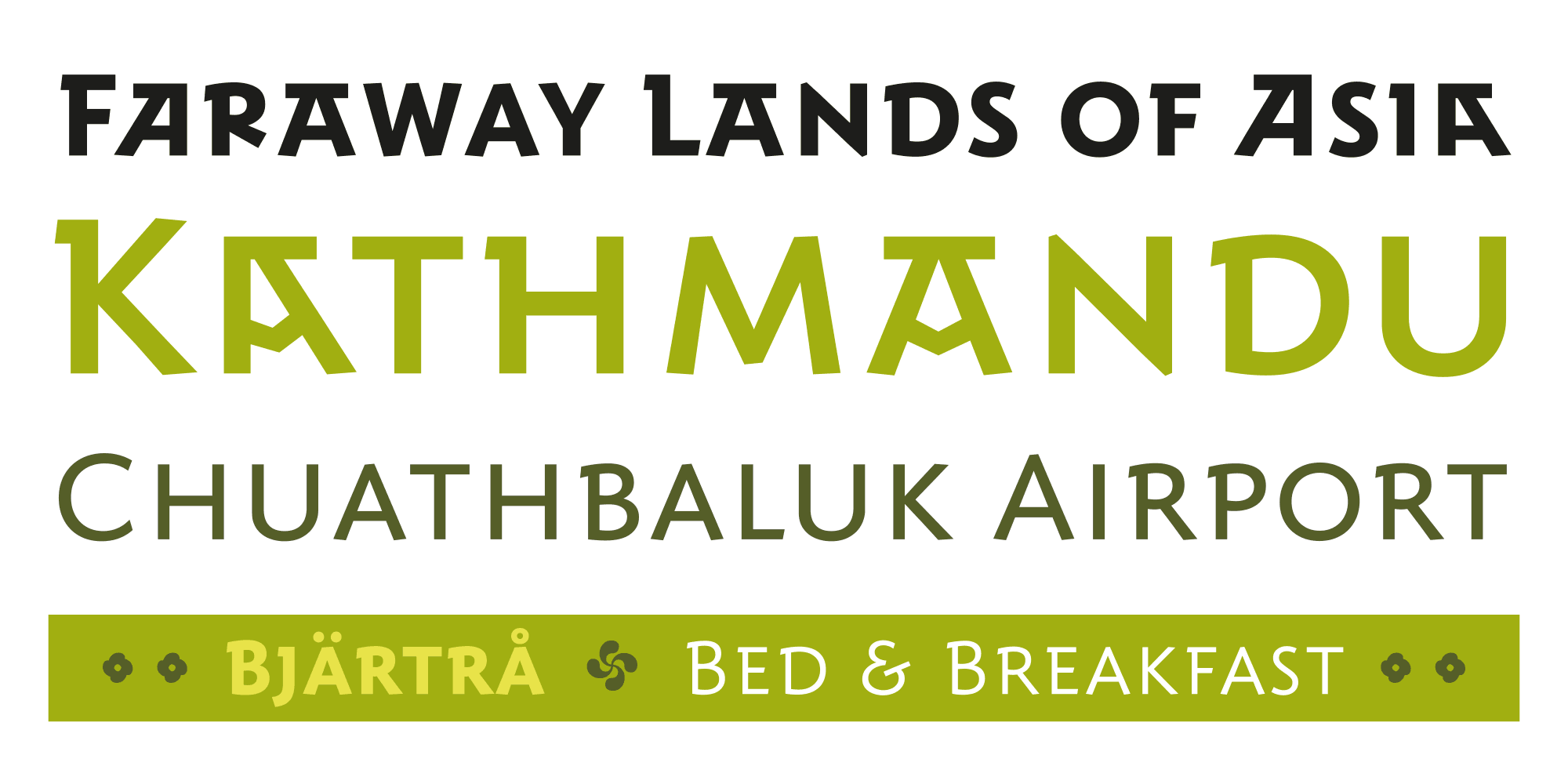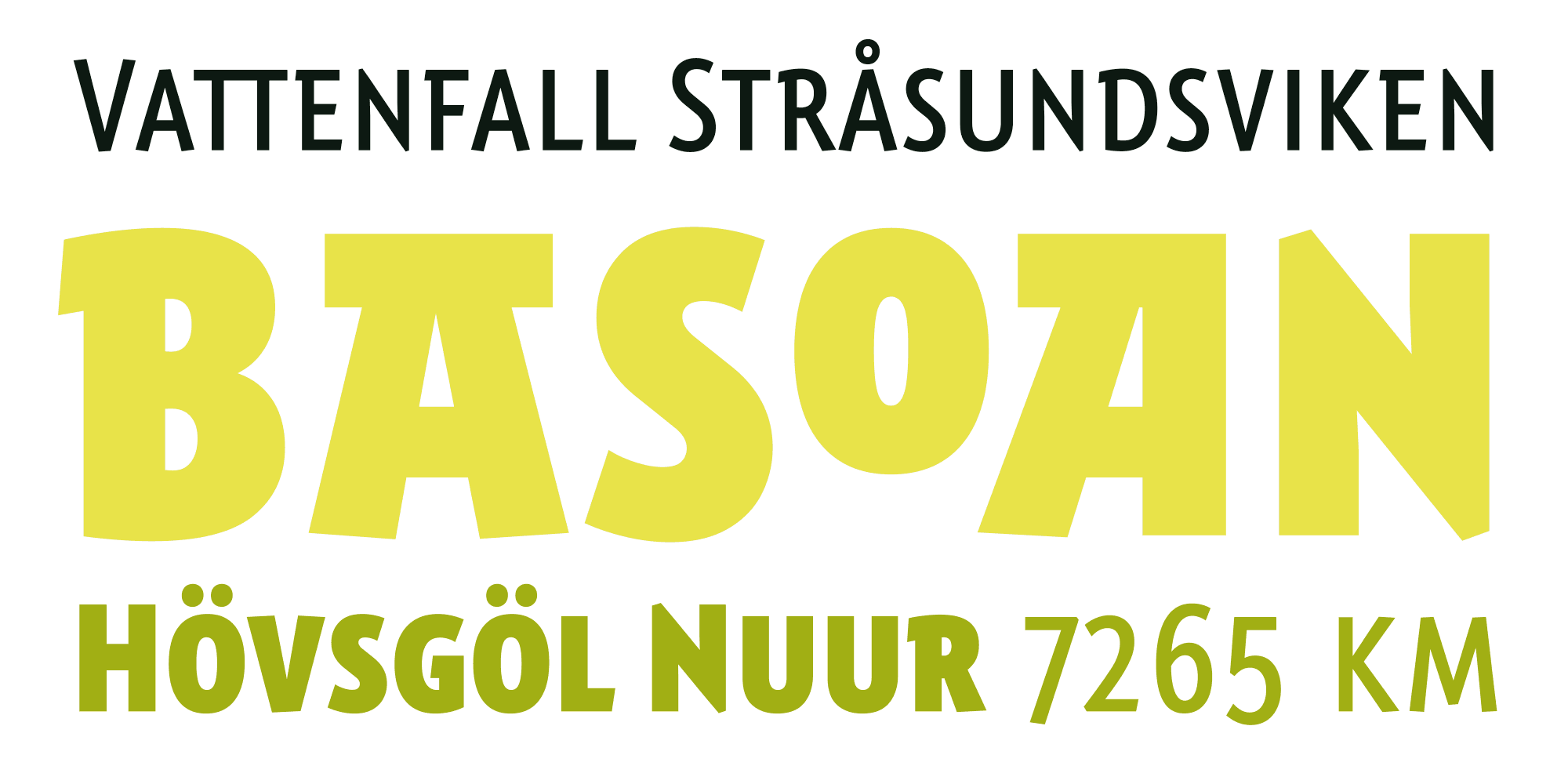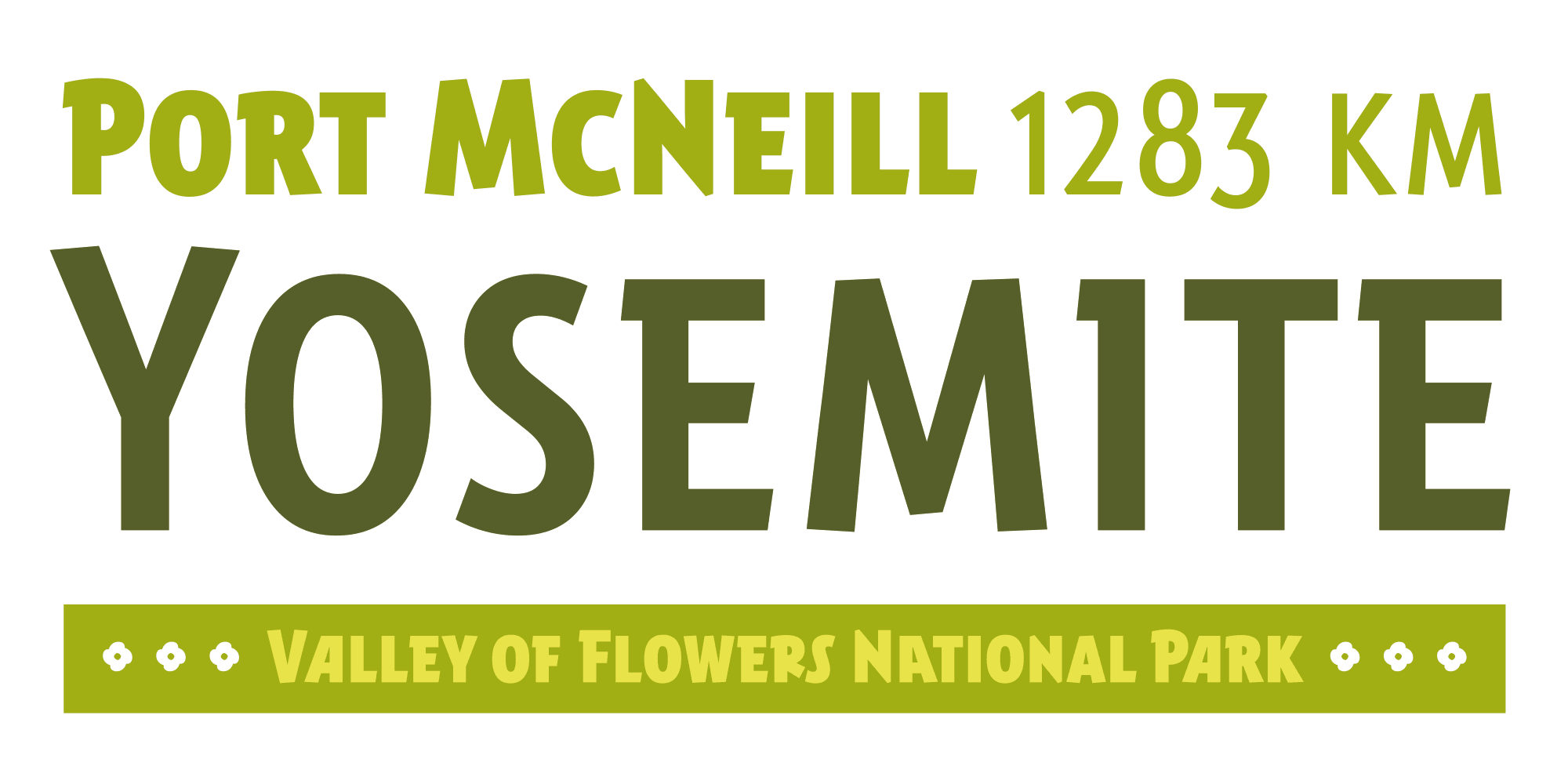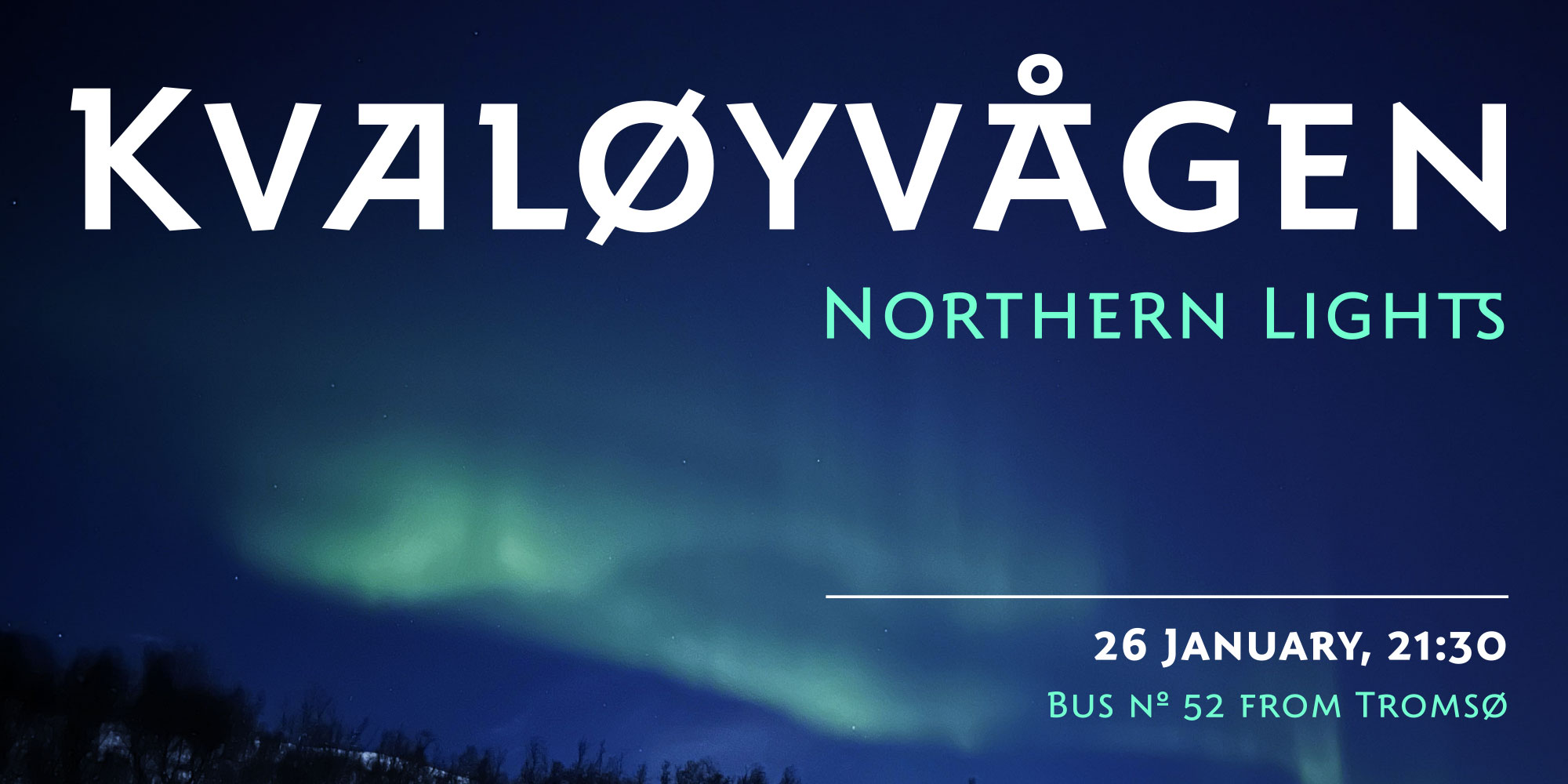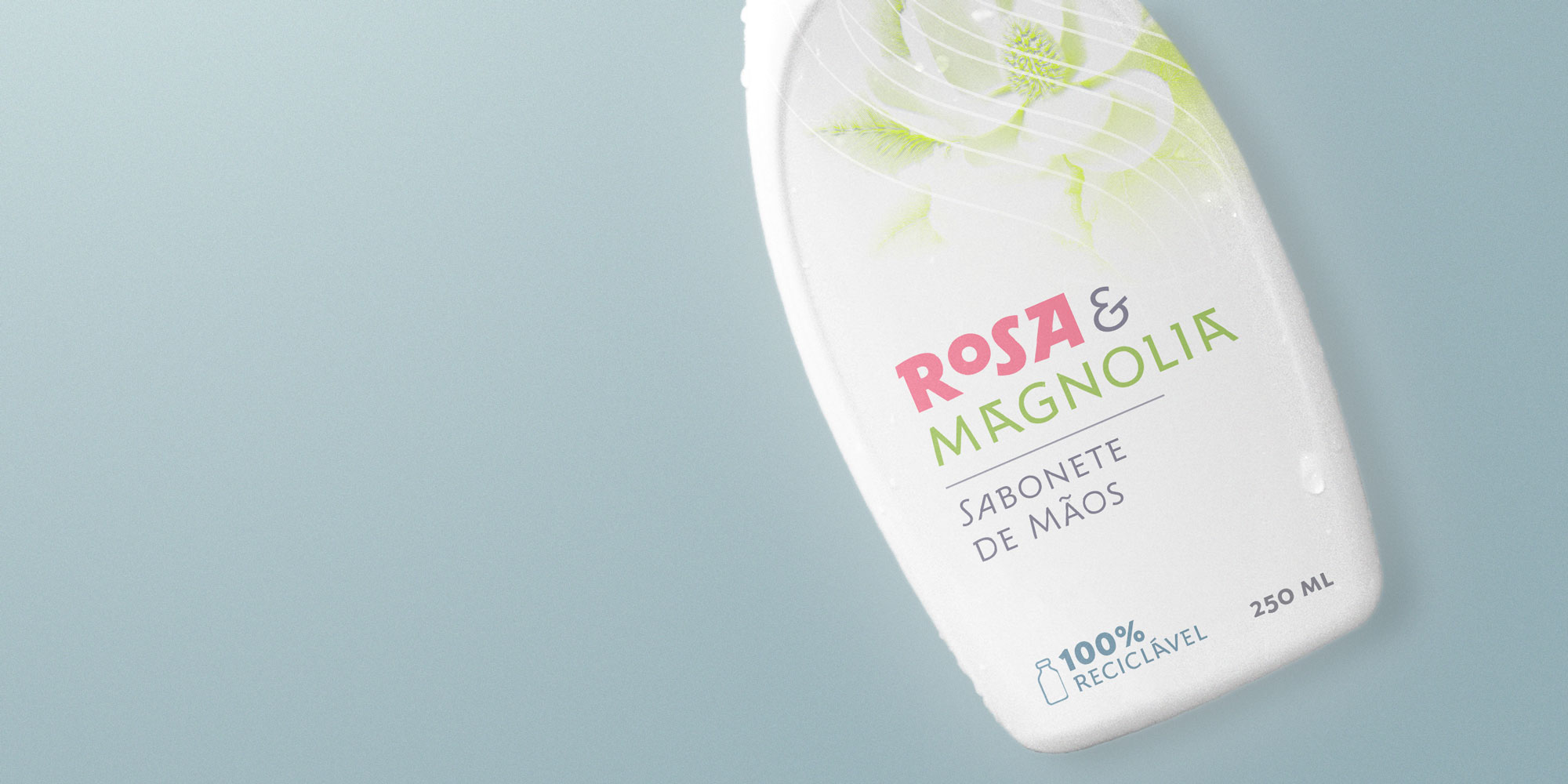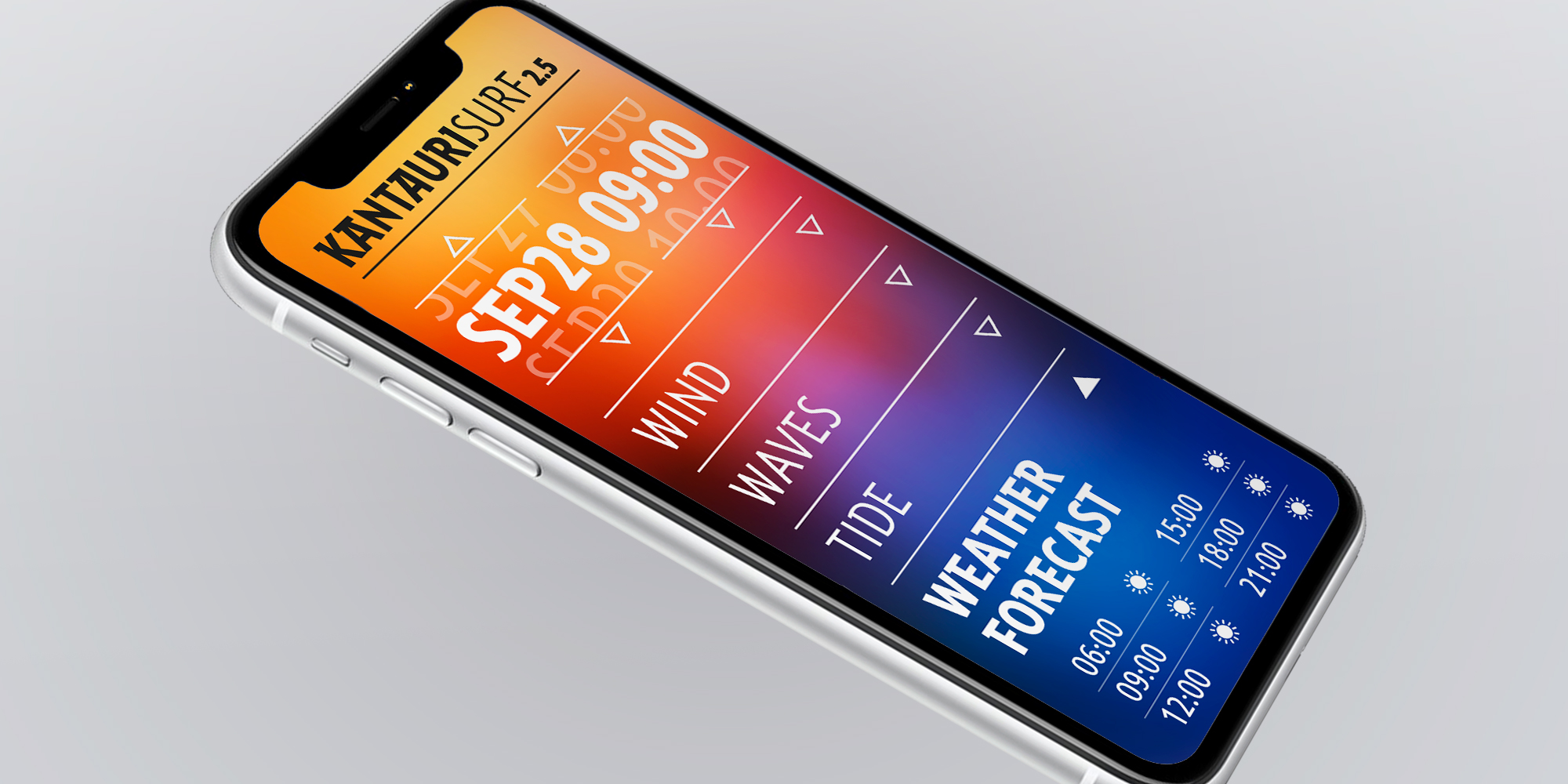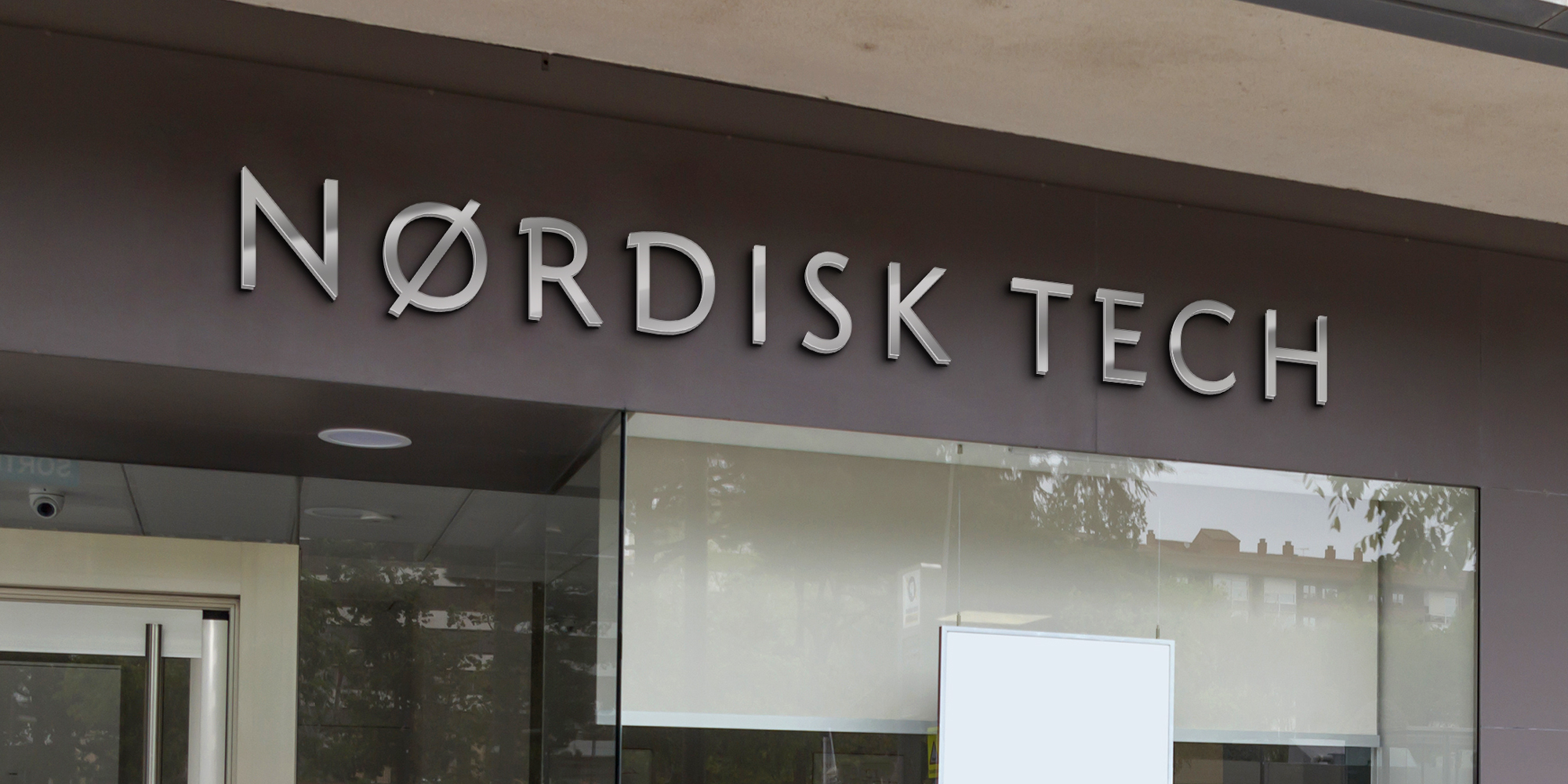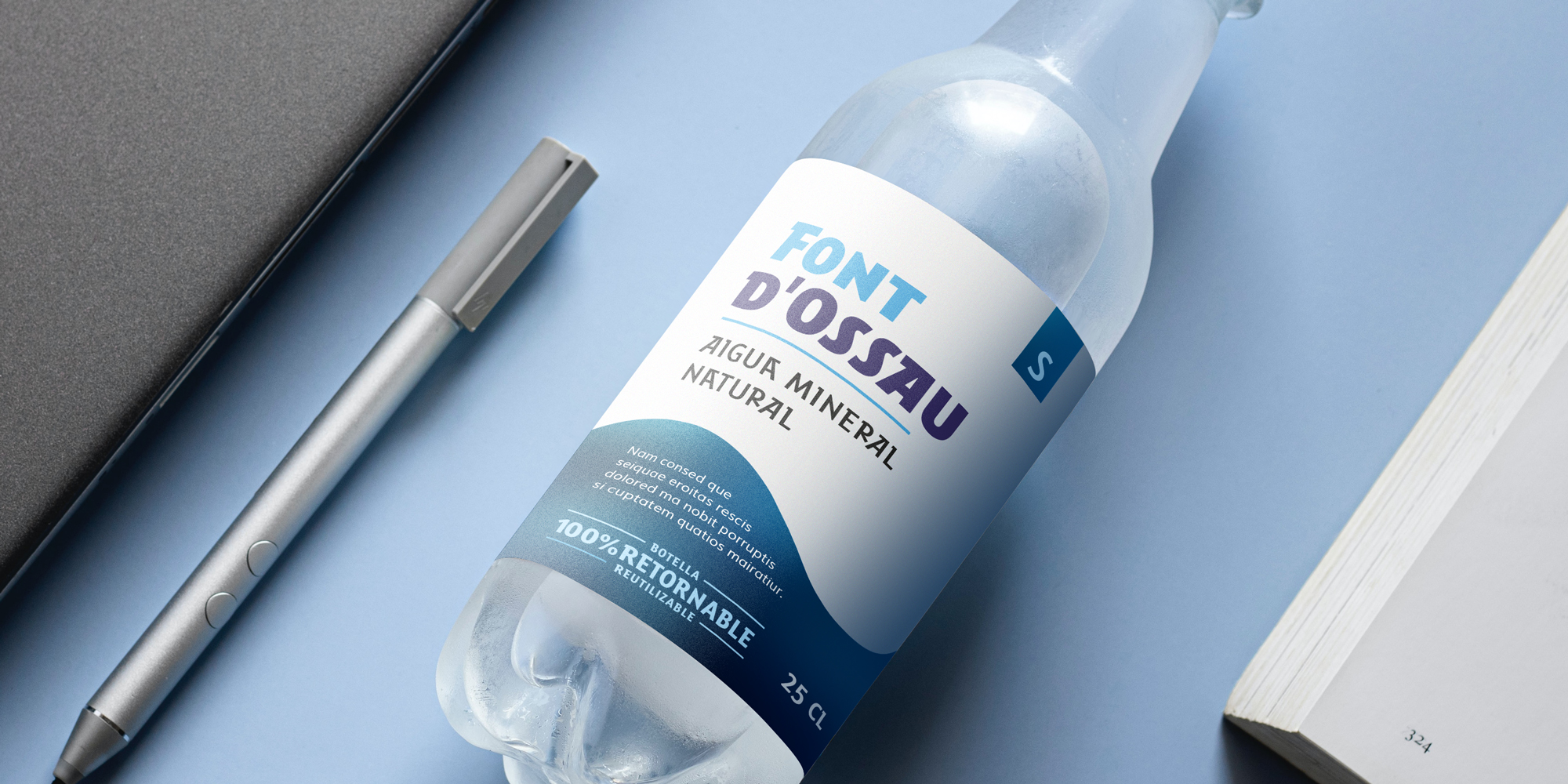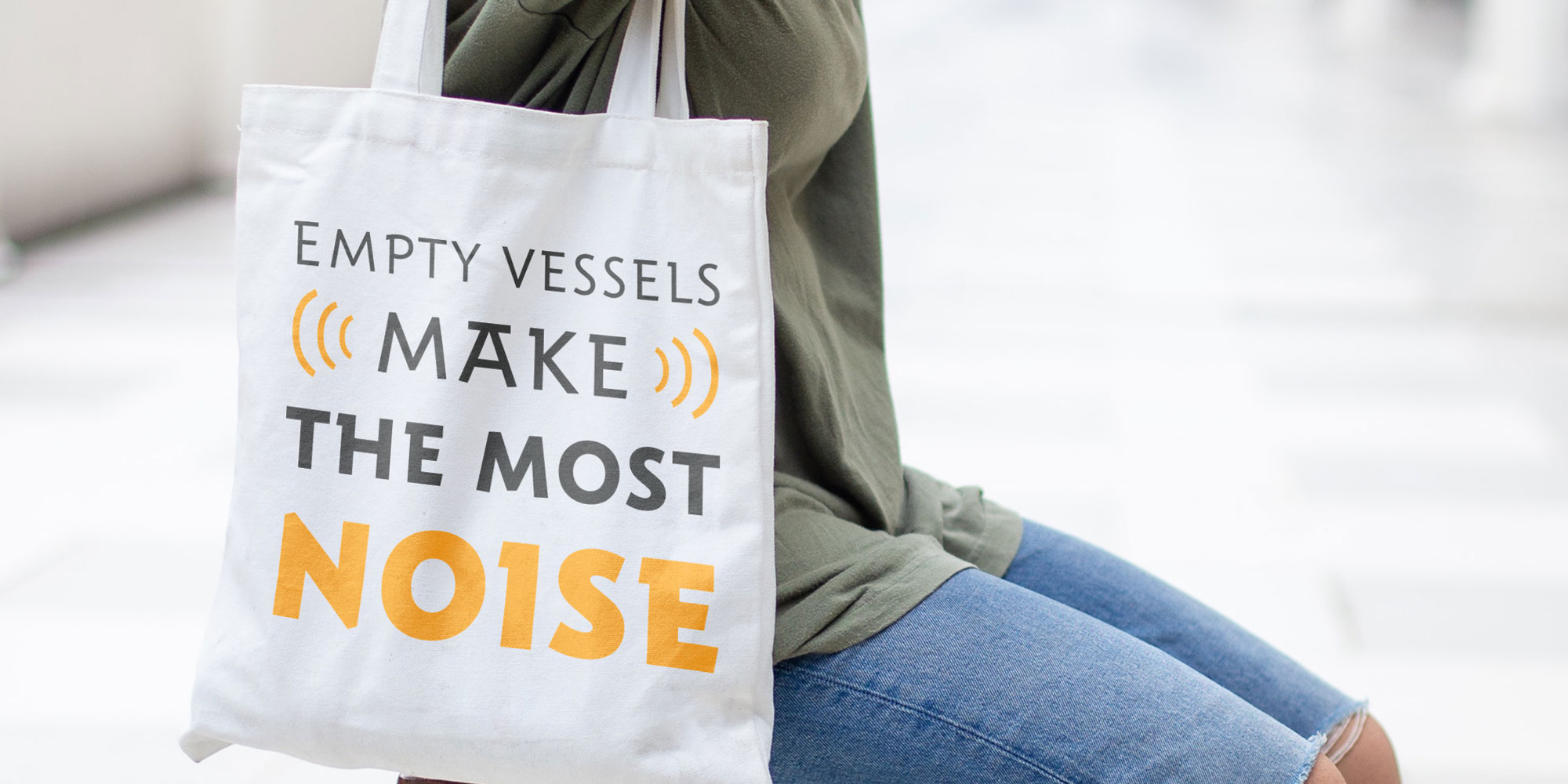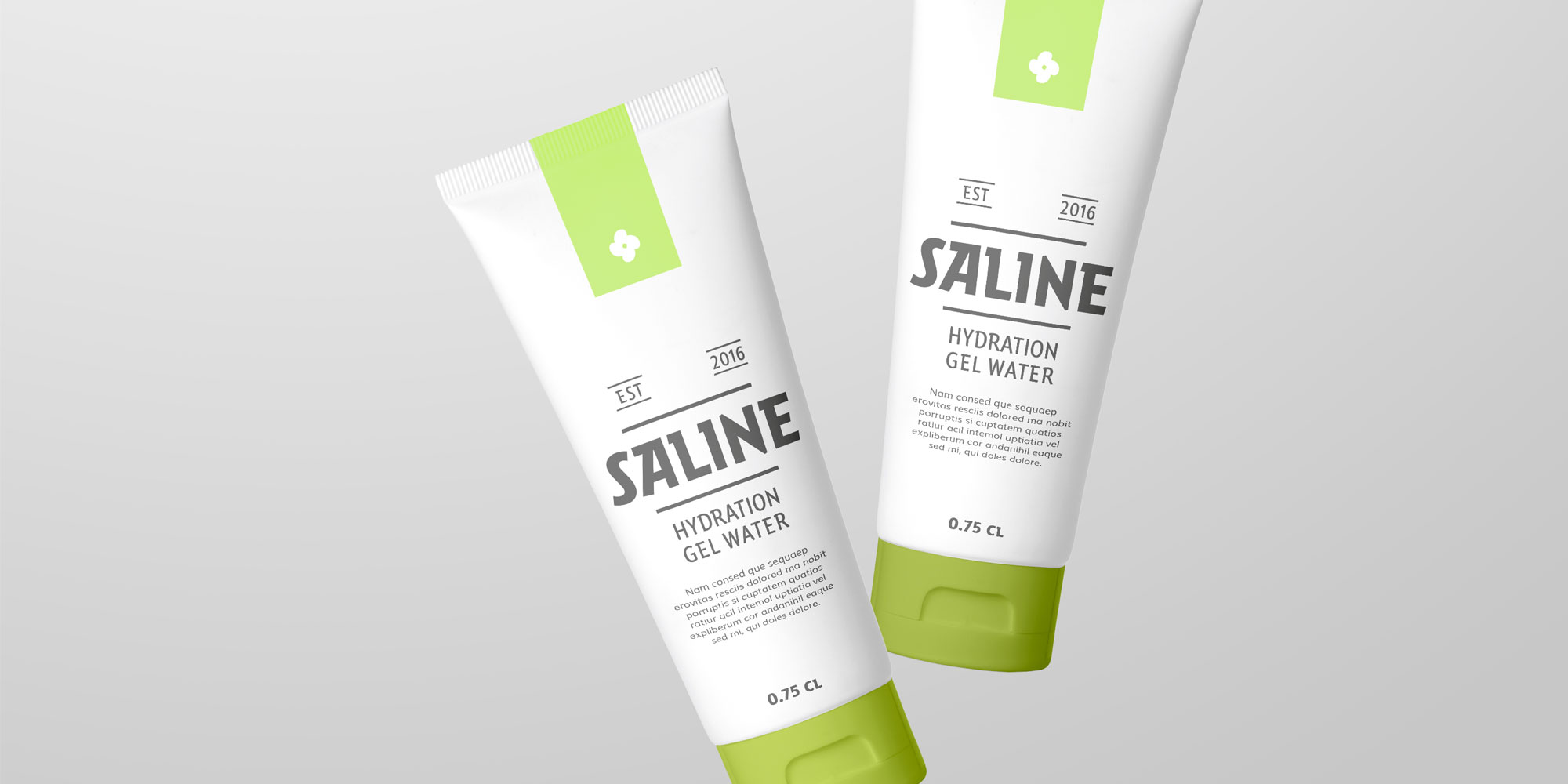
Harri Sans, Postcards Collection
Harri Sans Condensed, Postcards Collection
Harri Sans, Alternates and Features
Harri Sans
Styles
11
Stylistic Sets
Description
The subtle contrasts and graceful qualities of the Harri typeface family have been refined in Harri Sans to create a more linear, robust, and modern appearance. The stems and serifs have lost the distinctive flares characteristic of Basque lettering and have become straight. While the humanist proportions, one of Harri’s most notable features, have been preserved, the calligraphic traits of the original curves have been adjusted to bring them closer to the style of modern geometric sans serif typefaces. Nevertheless, they retain a slightly organic flavour, striking a balance between tradition and modernity. The result is a modern, stylish, and versatile display sans serif typeface with a distinctive character. As with Harri, the combination of styles, contextual alternates, and varied ligatures provides ample opportunity for experimentation, whether for posters, book covers, packaging, or websites. In any application, Harri Sans will help to convey clear, precise, and powerful messages.
Harri Sans Condensed keeps the signature look of Harri Sans but in a tighter, space-saving form. Since Harri Condensed and Harri Sans Condensed share the same structure and metrics, you can swap between them without worrying about line breaks or text reflow. Like the rest of the Harri type family, it offers plenty of ways to experiment —mix and match styles, explore contextual alternates, and play with ligatures. Whether you’re working on posters, book covers, packaging, or websites, Harri Sans Condensed delivers a clear, bold voice while making the most of your space.